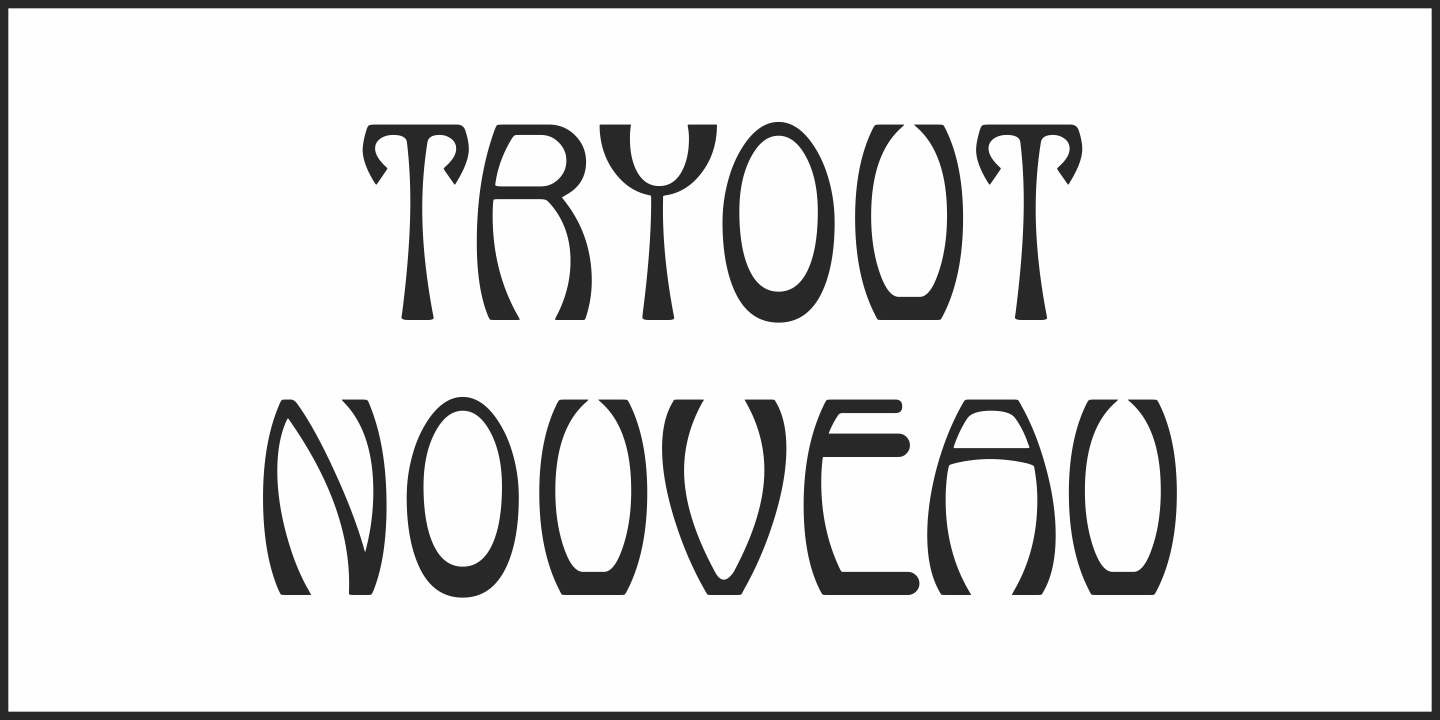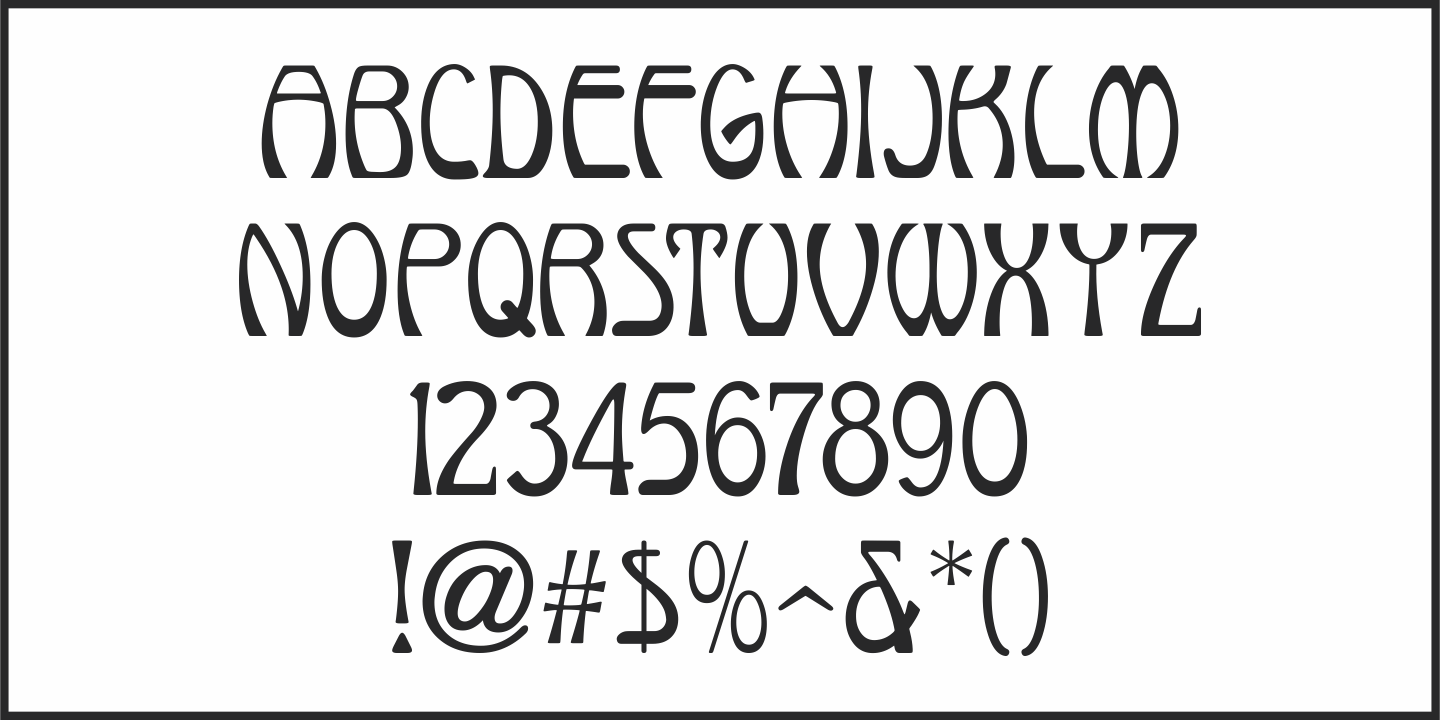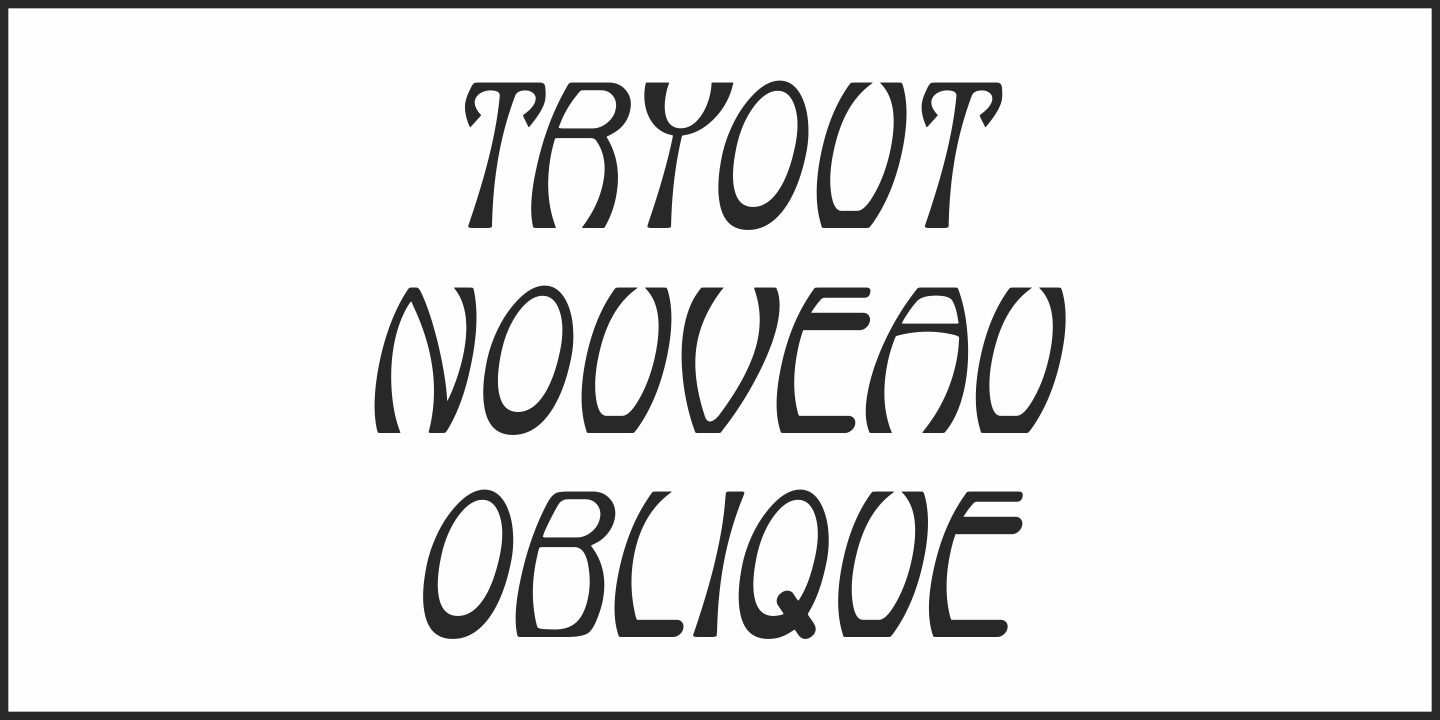
Tryout Nouveau
The hand lettered Art Nouveau title on the sheet music for 'Why Don't You Try' (1905) served as the inspiration for Tryout Nouveau JNL, which is available in both regular and oblique versions.